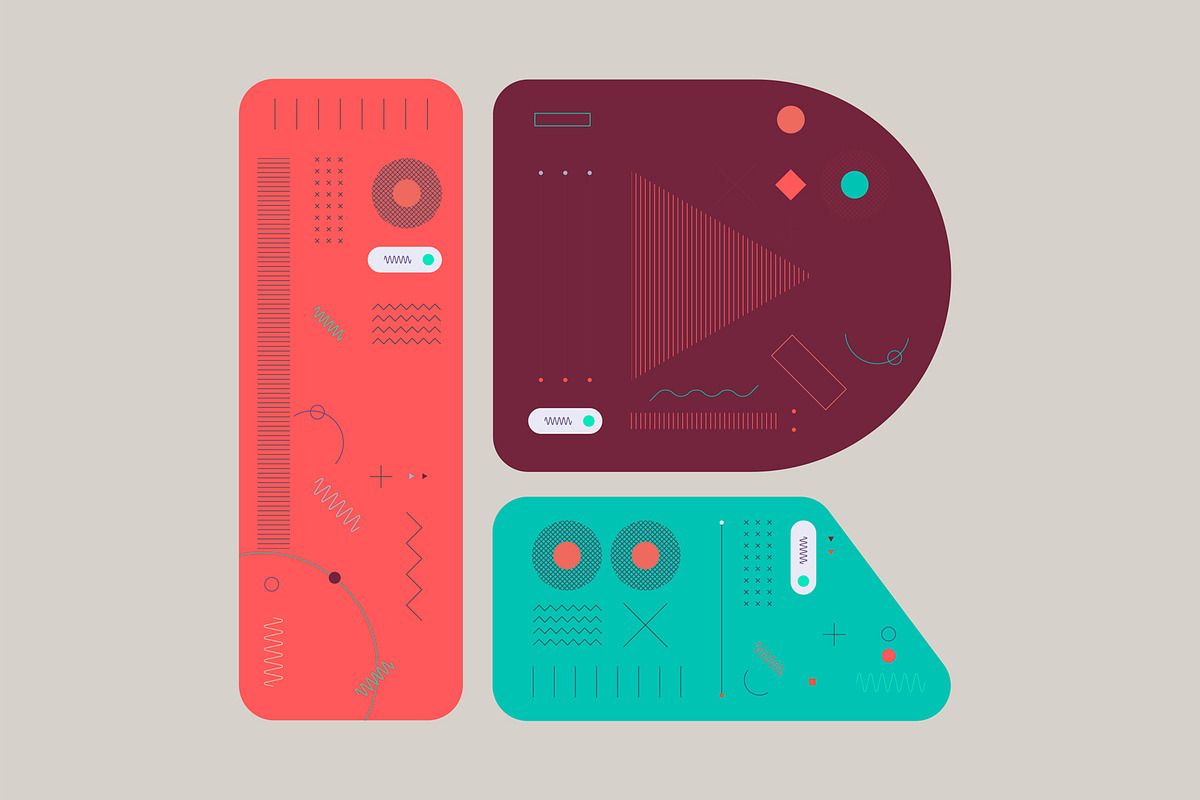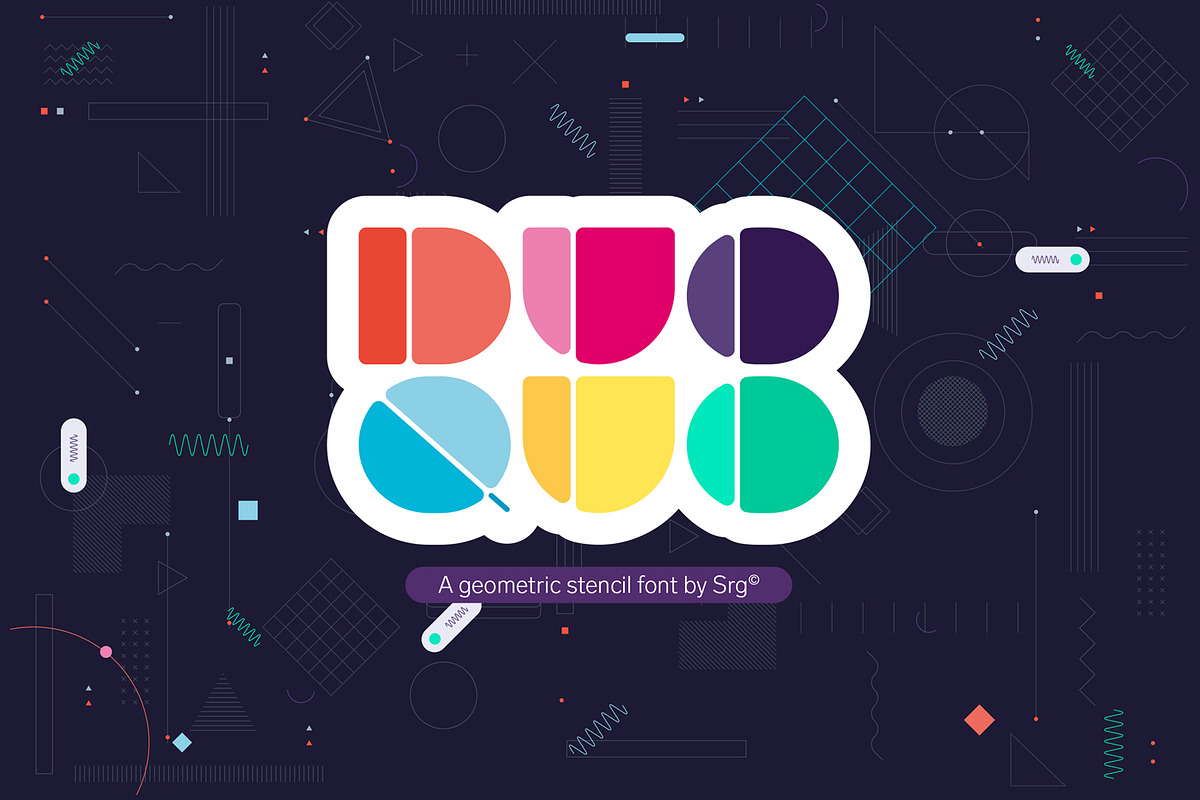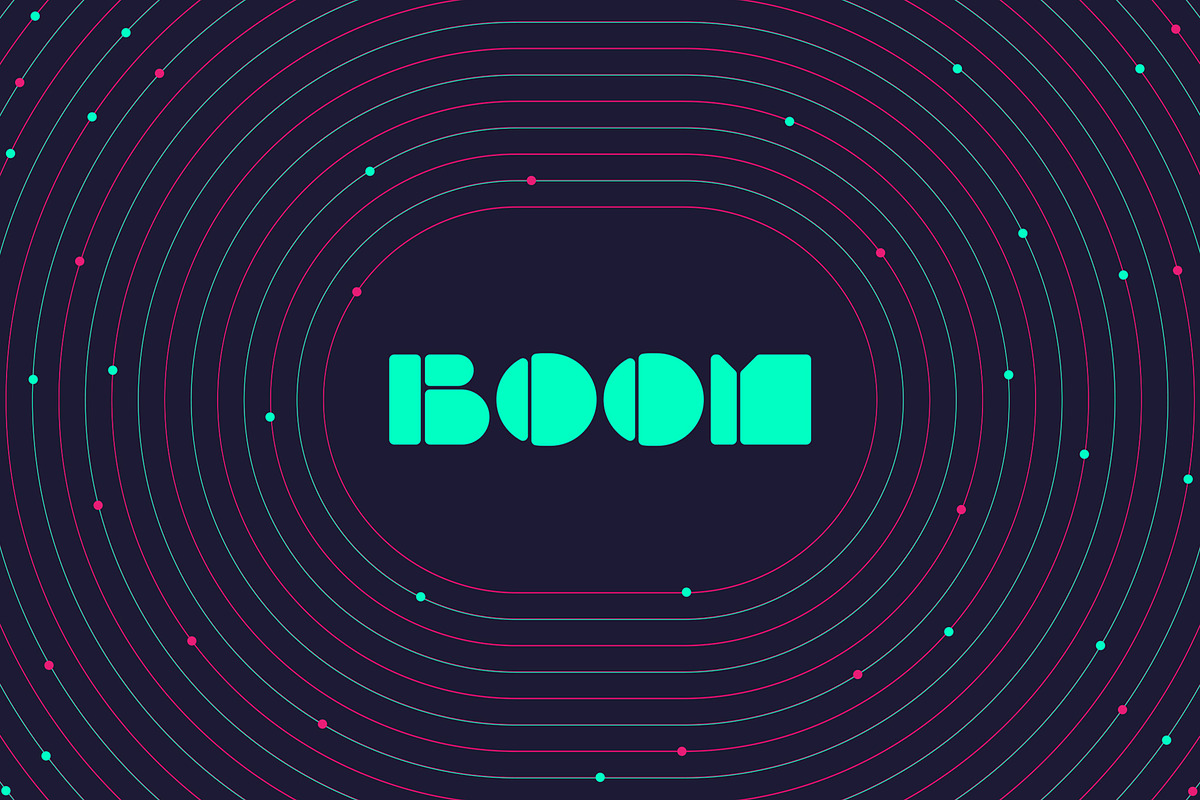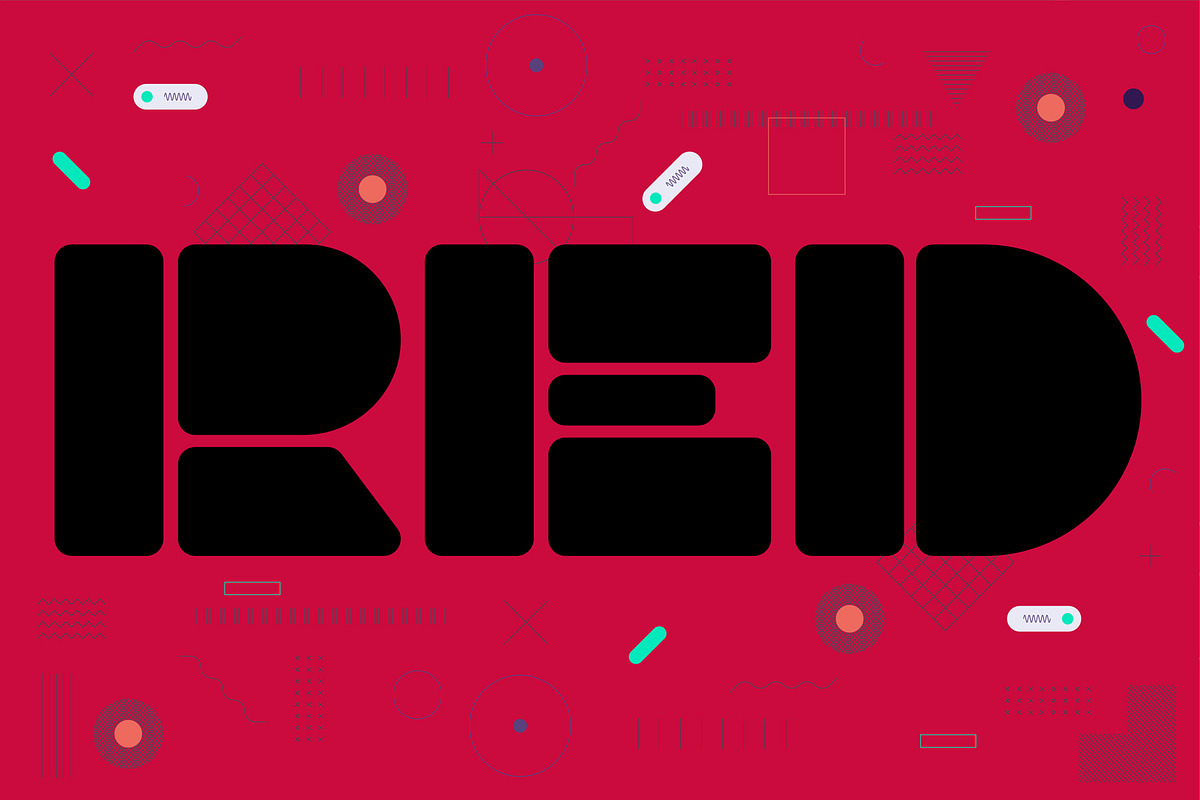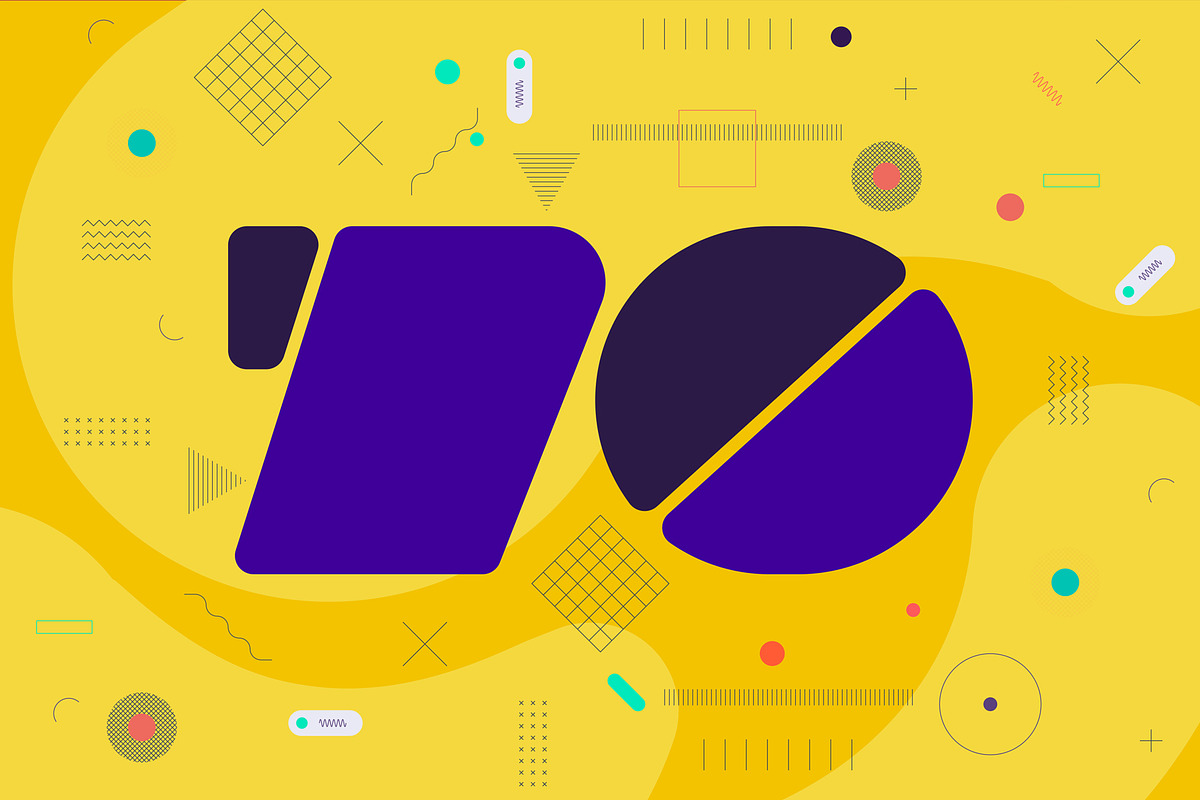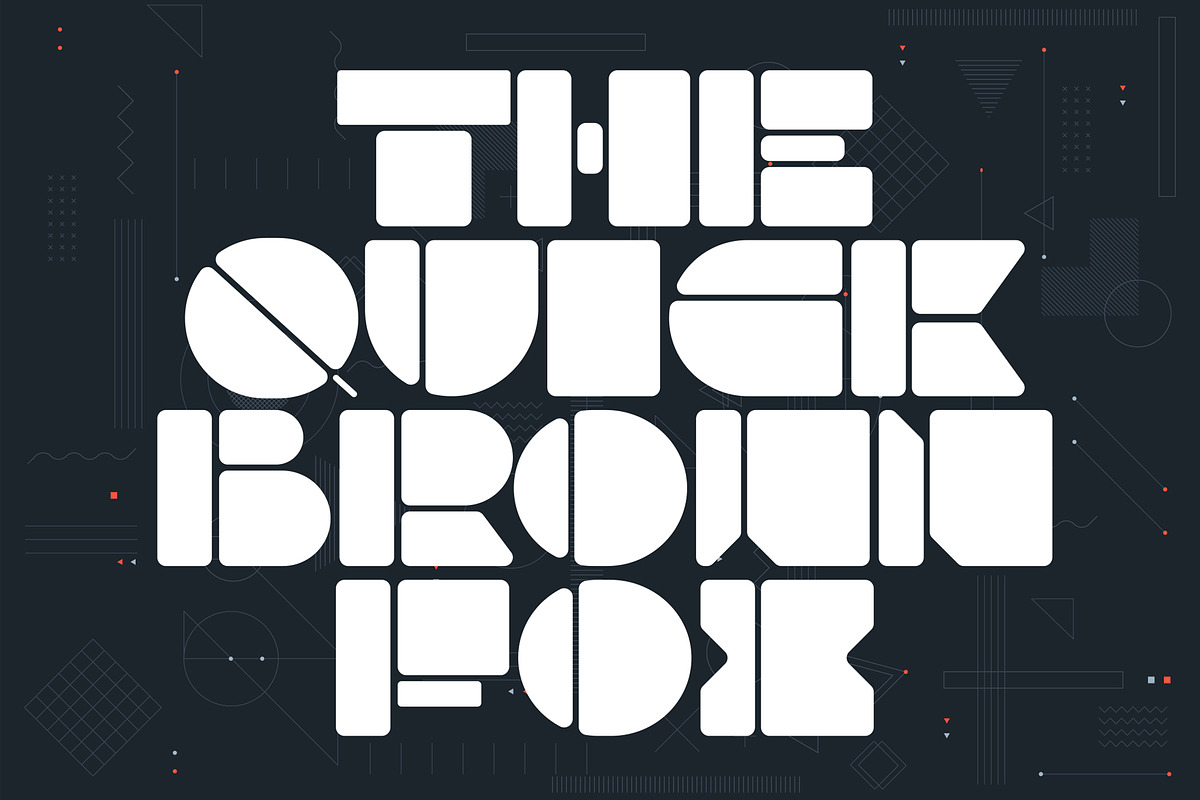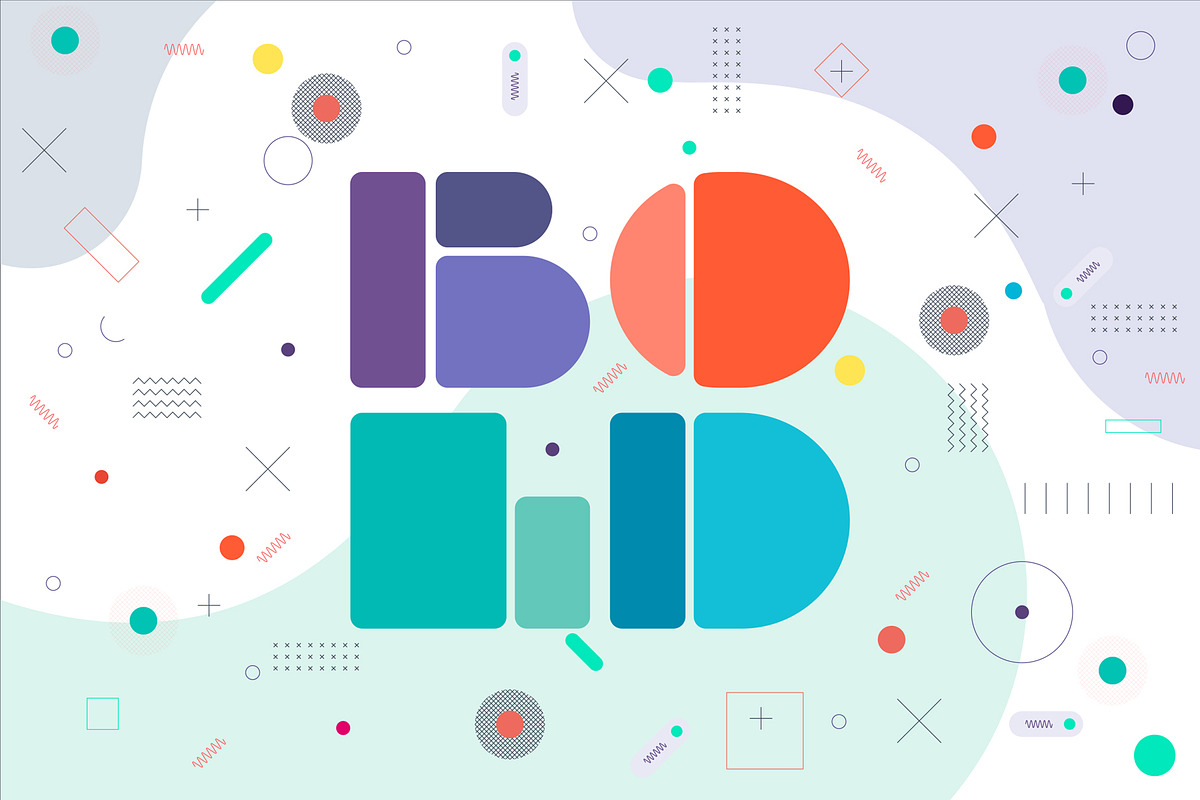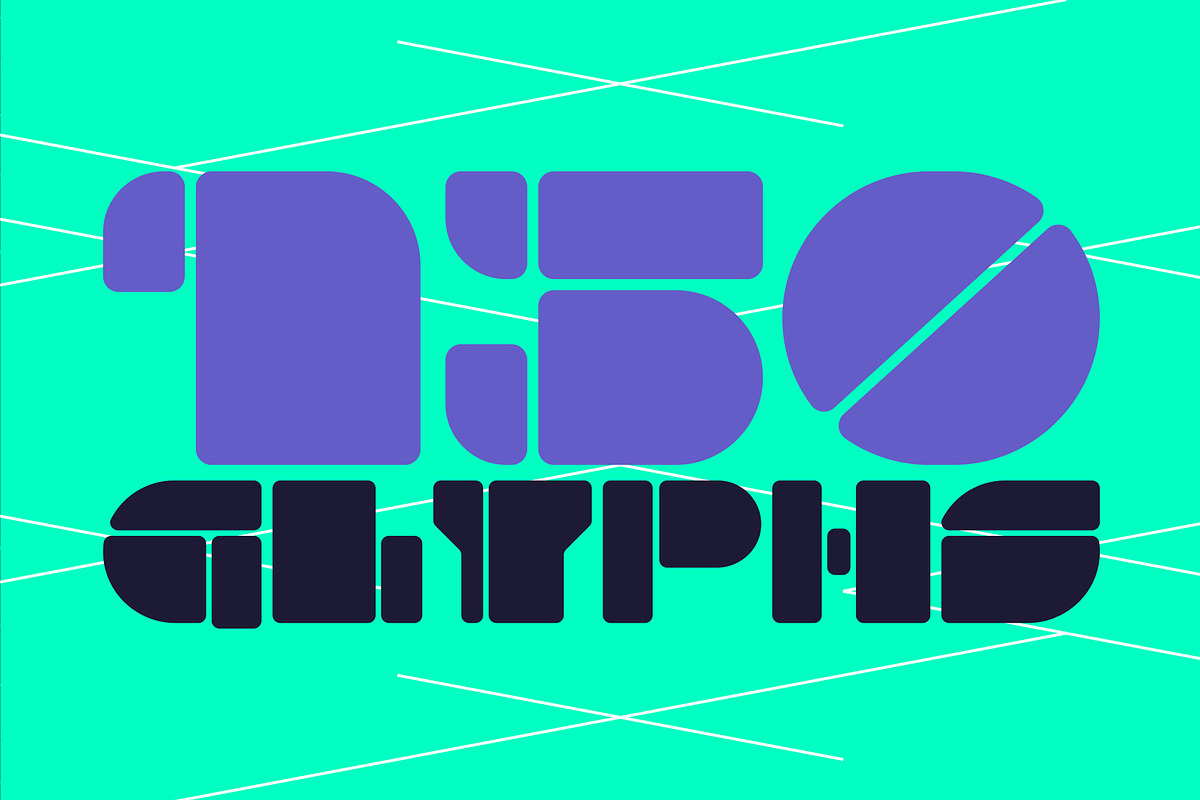
Quo Duo-Geometric display typeface
Srg-Quo Duo display typeface.
An elegant & classic display typeface. CAPITALS ONLY
Specifically designed for display use, great for titles, logotypes, monograms and short texts, it includes 227 glyphs, ASCII / ISO 8859-1 (Latin-1)